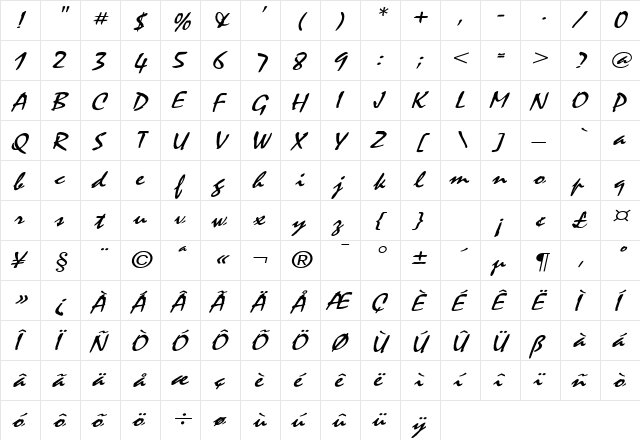
Mystic Wide Italic
Design Context for Mystic Wide Typeface
Mystic Wide is a composed and adaptable typeface that performs quietly and consistently across a wide range of design contexts. The slanted form adds forward momentum and visual energy.
Pro Tip: Try Mystic Wide for annotation and caption copy alongside an upright companion — the contrast in angle creates a dynamic but ordered typographic system.